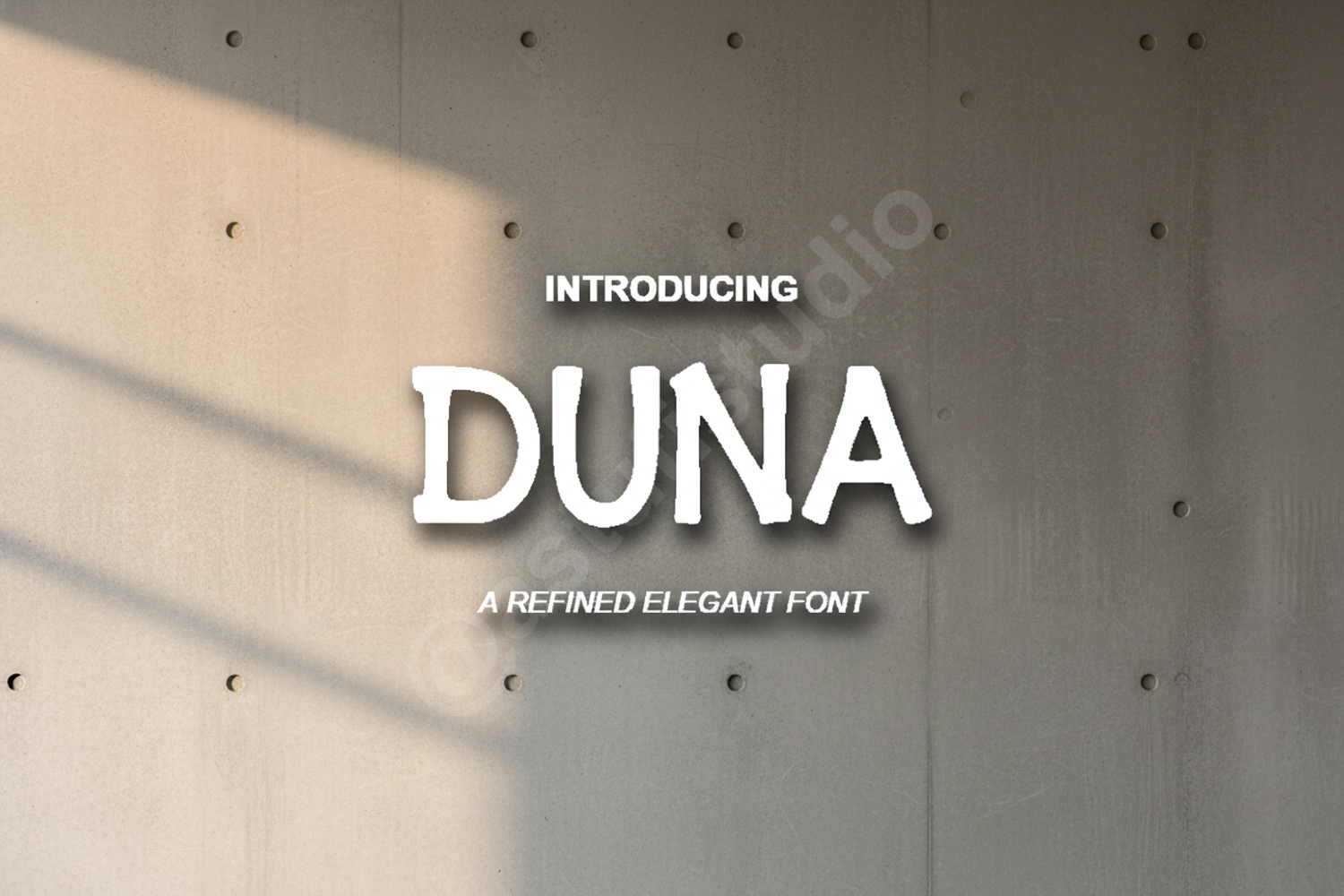
Duna - Elegant Modern Sans Serif Typeface
Duna
Duna is a premium sans serif typeface designed for creators who value precision and elegance. With its clean lines and balanced proportions, Duna offers a sophisticated aesthetic that bridges the gap between contemporary minimalism and timeless professional design. Whether you are crafting a high-end brand identity or a sleek editorial layout, this font provides the versatility needed to make a lasting impression.
- Branding and Identity: Perfect for logos, business cards, and corporate stationary.
- Editorial Design: Ideal for magazine headers, book covers, and digital publications.
- Digital Marketing: Enhance your social media graphics, website banners, and ad campaigns.
- Wedding and Events: Create sophisticated invitations and event signage.
- Product Packaging: Elevate retail labels and luxury goods presentation.